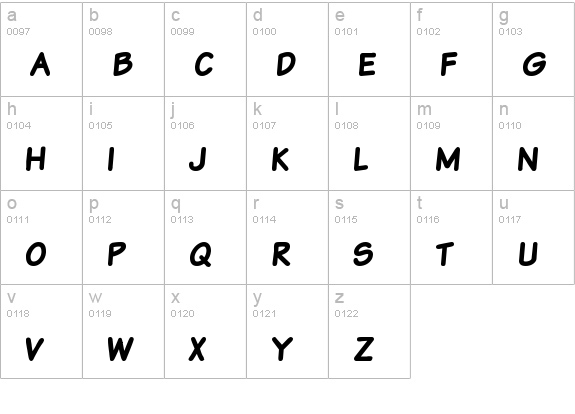
Komika Text Kaps Bold is a strong, high-contrast variant in the Komika typeface family \xE2\x80\x94 well suited to headlines, attention-grabbing titles, and strong calls-to-action.
Komika Text Kaps Bold is a bold and eye-catching font that exudes a sense of modernity and sophistication. Its unique and playful design makes it perfect for titles, headlines, and branding materials that require a touch of individuality. The strong, uppercase characters command attention and convey a sense of confidence. The best part about Komika Text Kaps Bold is that it is available for free download at FontsMarket.com. This means that you can easily access and use this striking font for both personal and commercial projects without any cost. Whether you are designing a poster, logo, or website, Komika Text Kaps Bold is sure to make a bold statement and elevate your design to the next level. Download now and let your creativity shine with this stunning font.